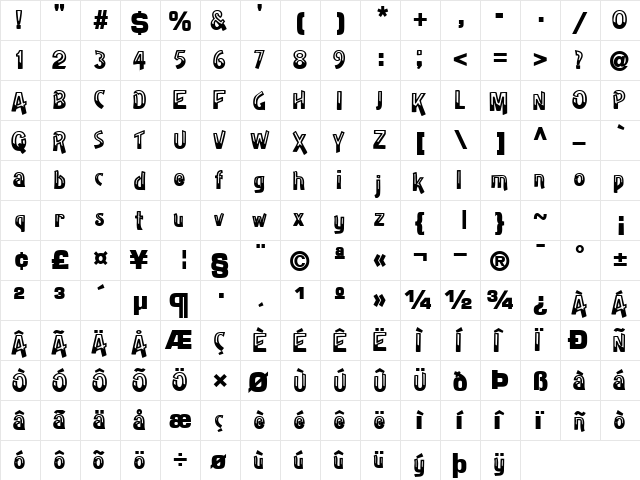
HalfBakedSSK Bold
Design Context for HalfBakedSSK Typeface
HalfBakedSSK is a composed and adaptable typeface that performs quietly and consistently across a wide range of design contexts. Its bold stroke weight gives it real presence on the page.